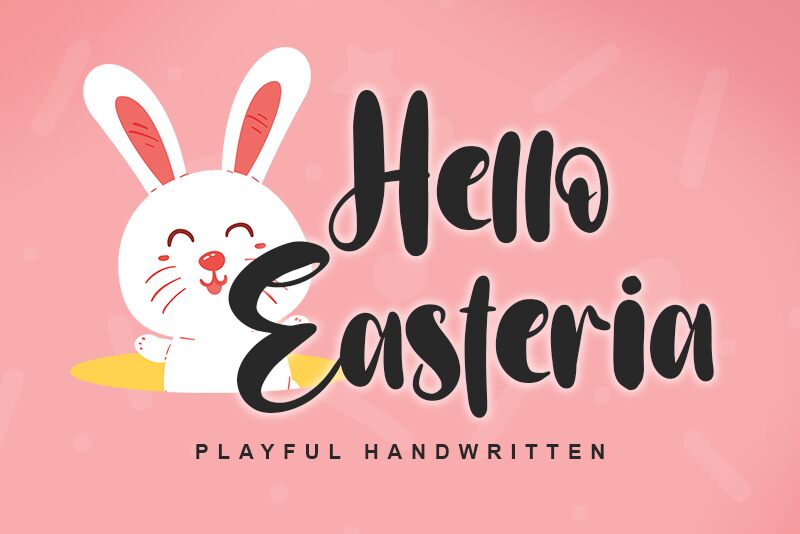
Hello Easteria, crafted by the talented Letterara, is a bold brush font that dances with a whimsical flair and modern twist. This trendy handwritten typeface encapsulates the spirit of creativity, making it an ideal choice for projects that require a personal touch with a dash of playfulness. The robust weight of Hello Easteria ensures your words stand out with confidence, while its enchanting style adds an element of warmth and charm to any canvas.
Perfect for branding, packaging, social media graphics, or festive occasions, this font's versatility allows it to adapt seamlessly across various design landscapes.
Embrace the captivating allure of Hello Easteria and watch as it transforms your creative ideas into memorable pieces that resonate with your audience.